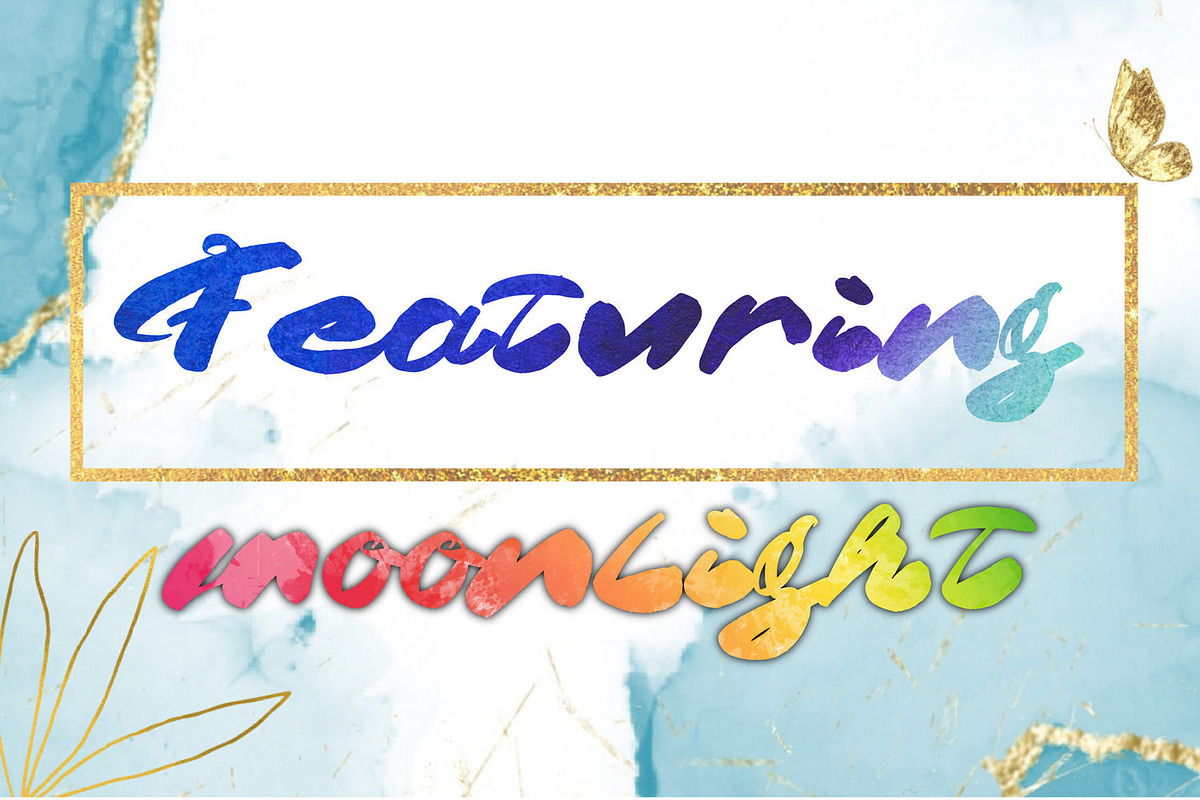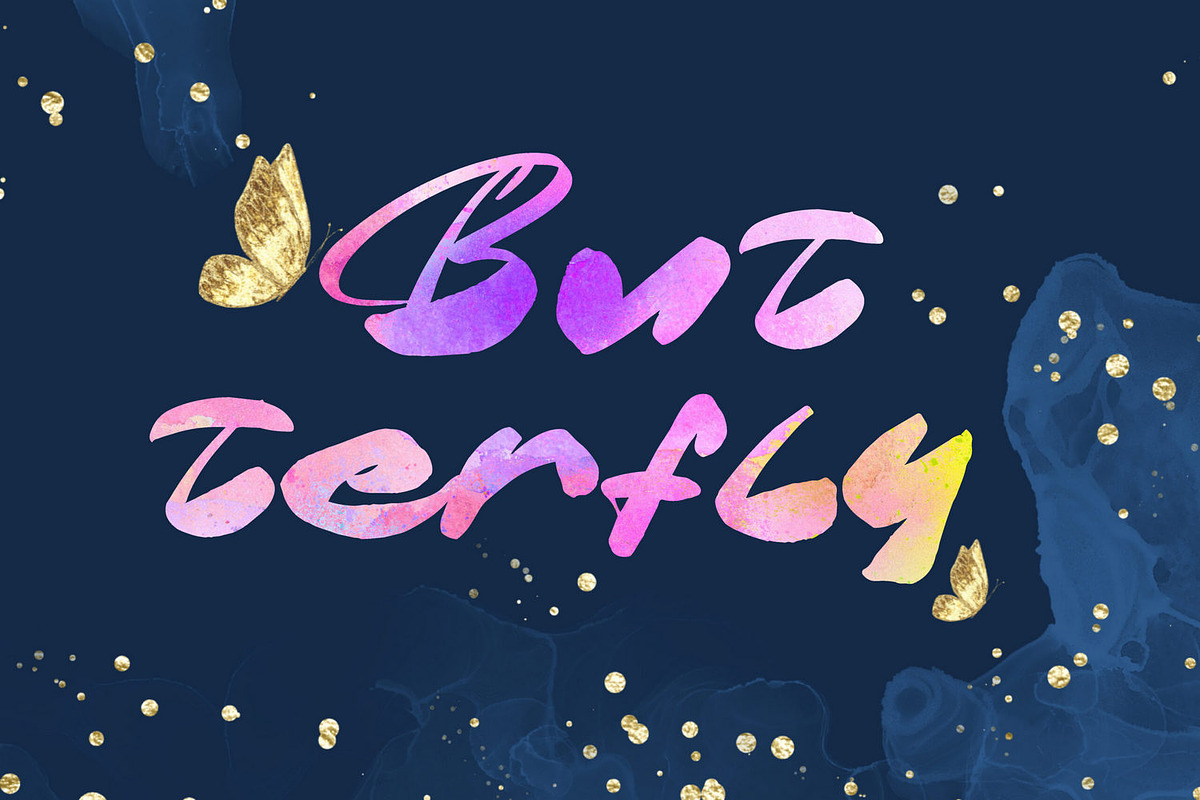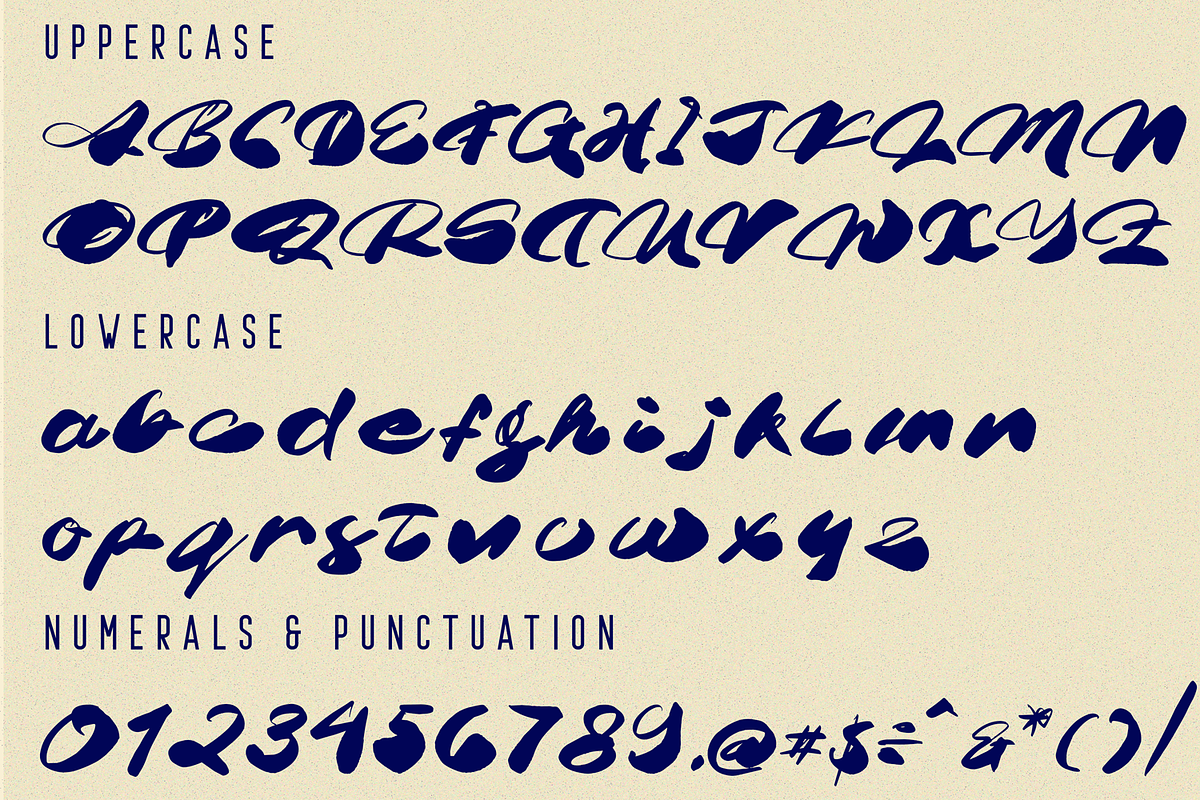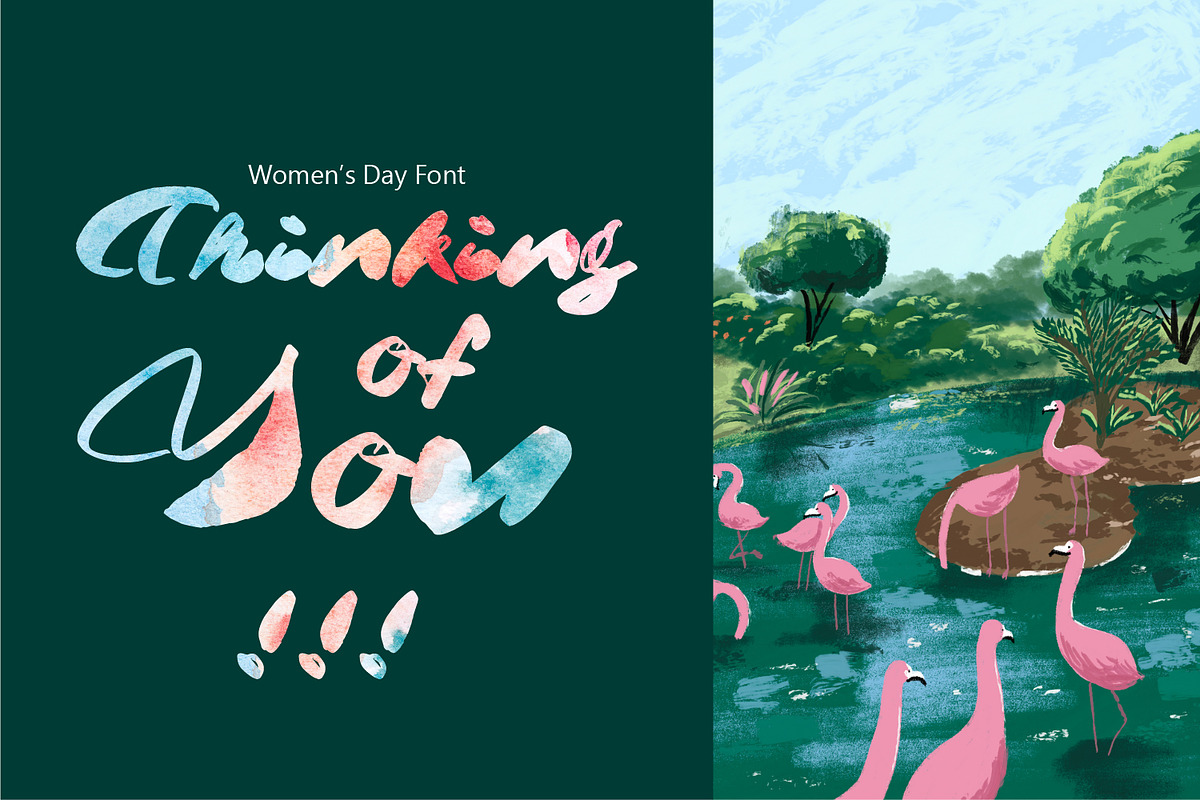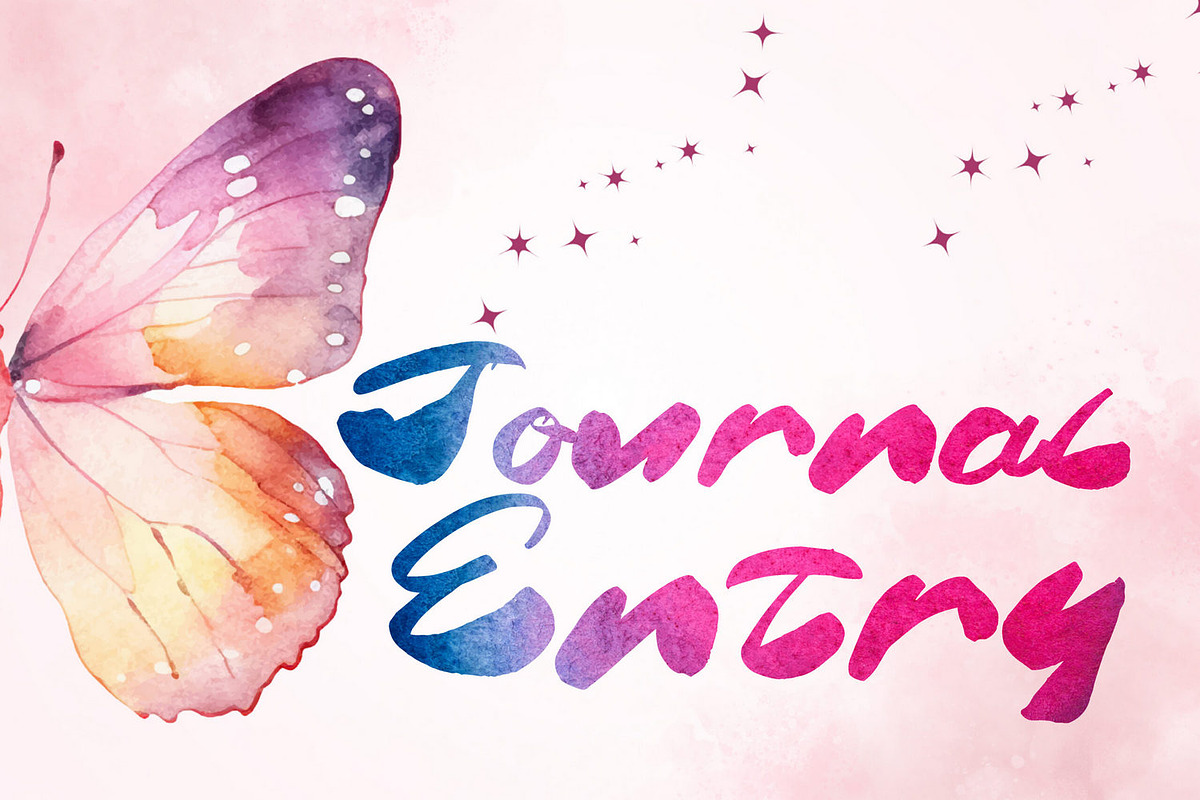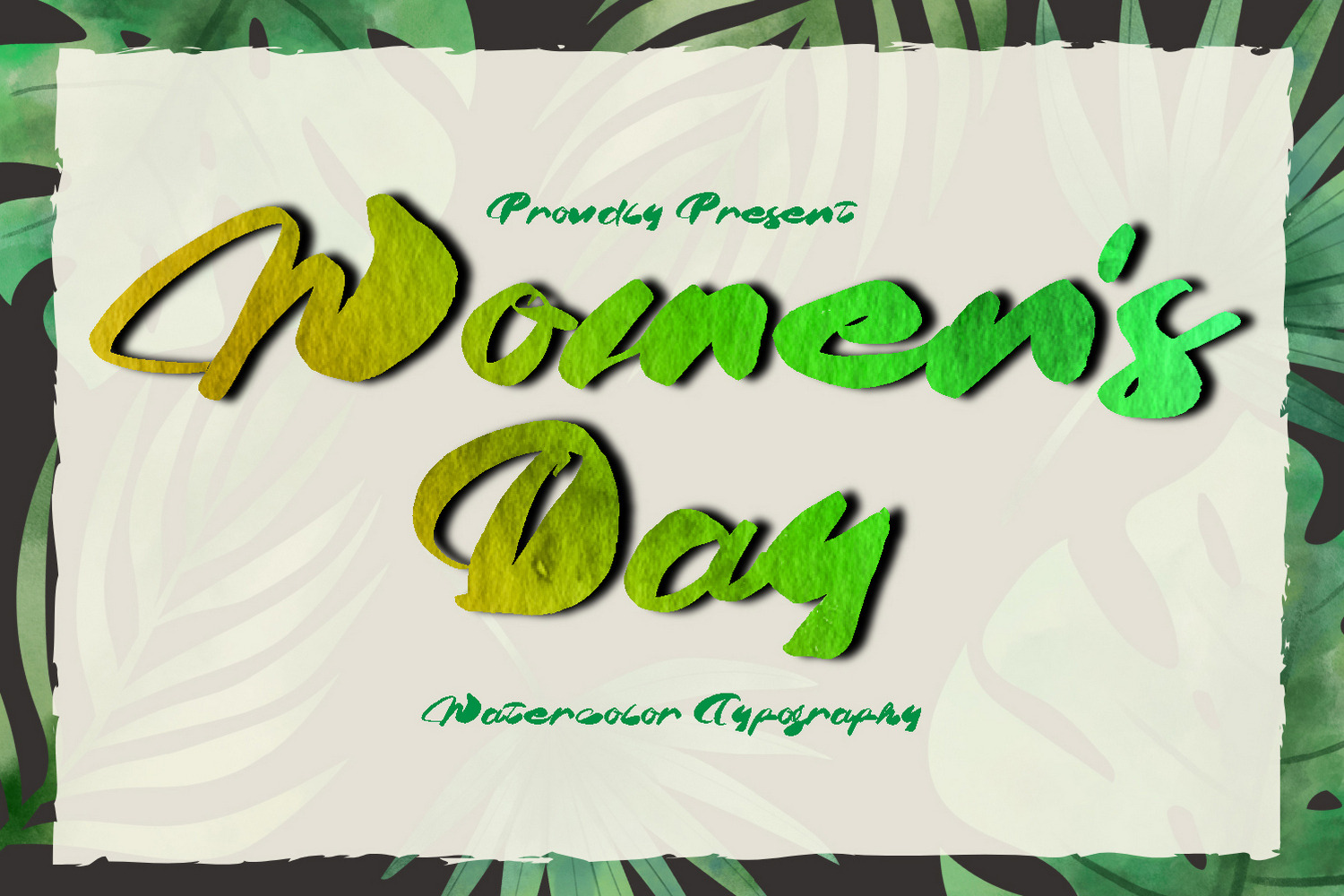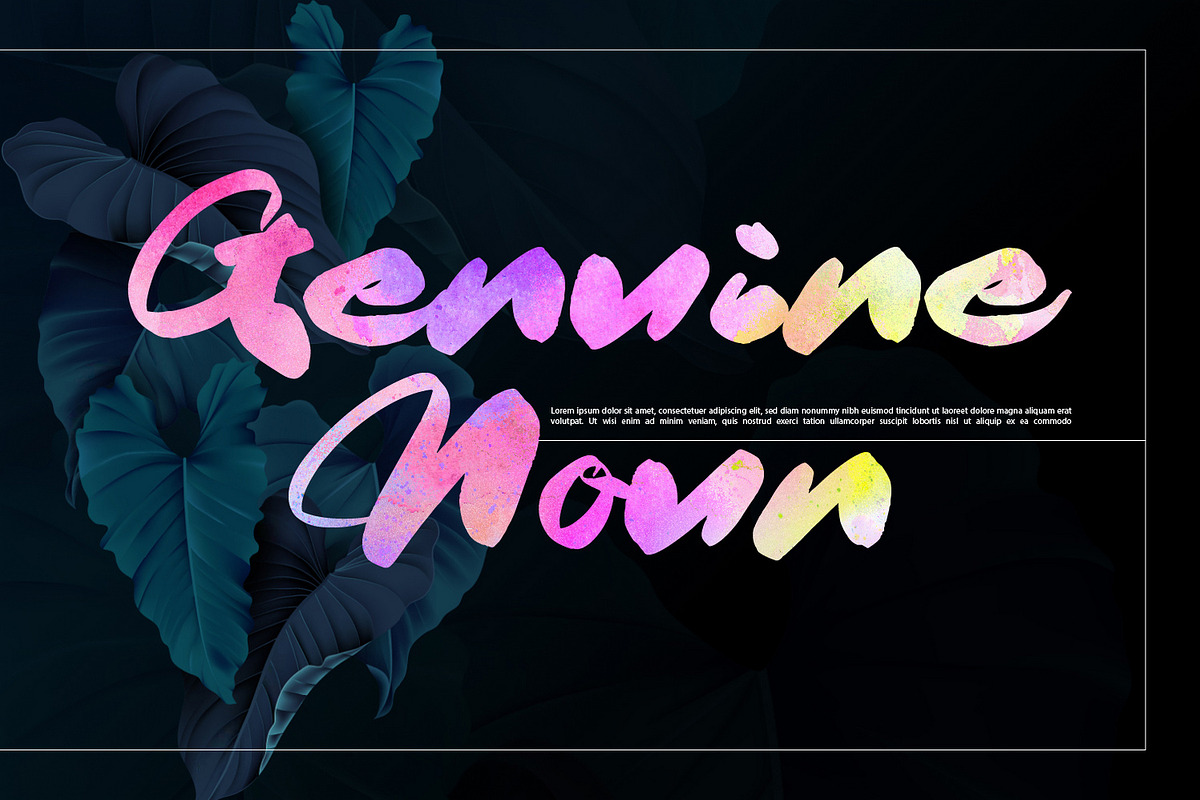
Women's Day Brush Font
Women's Day Brush Font - Brush or grunge style script display font for your new projects. Introduce a splash of spontaneity and flair to your designs, a typeface that's as bold and confident as it is expressive. It's stands out with its handcrafted look inspired by dynamic event posters and vibrant marketing campaigns. Great for grunge or artistic projects!